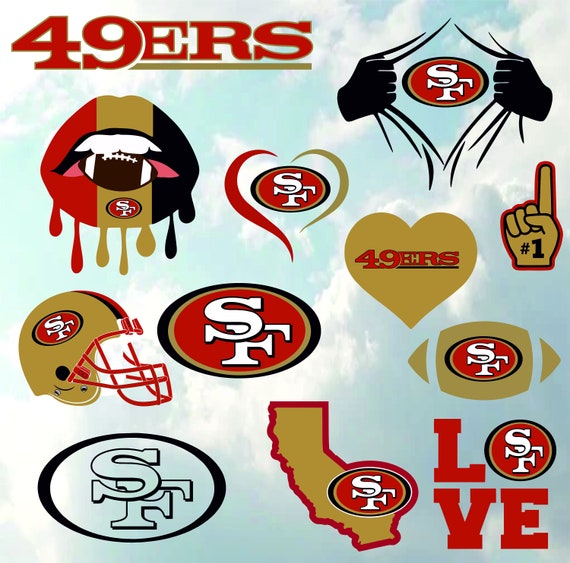
Vector 49ers Font
Free alternative fonts for san francisco 49ers logo.
Vector 49ers font. The best characteristic of this typeface is that it shows astounding readability even in the widescreen or on any hoarding displays. 49ers font family the quentin caps font was created by mr. Looking for vector fonts.
In fancy retro 335512. The closest font you can get for the san francisco 49ers logo is clarendon std bold font. Font by vernon adams.
San francisco 49ers logo. The closest font you can get for the san francisco 49ers logo is clarendon std bold font. San francisco 49ers logo.
Download free fonts for san francisco 49ers logo. Results 0 6 of. The san francisco logo in 2009 went through some small changes regarding the color scheme.
The closest free font you can get is kameron bold font. The teams colors are red gold. The current status of the logo is active which means the logo is currently in use.